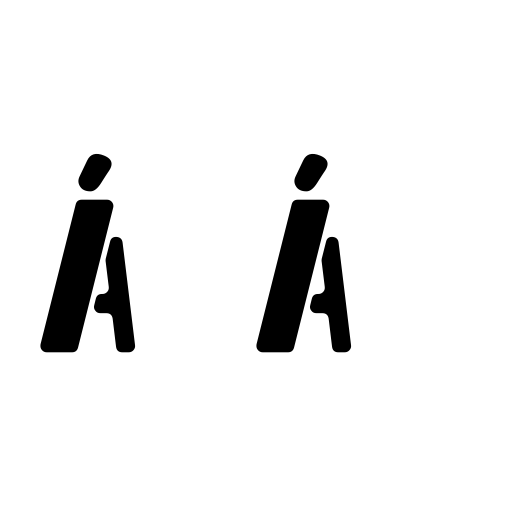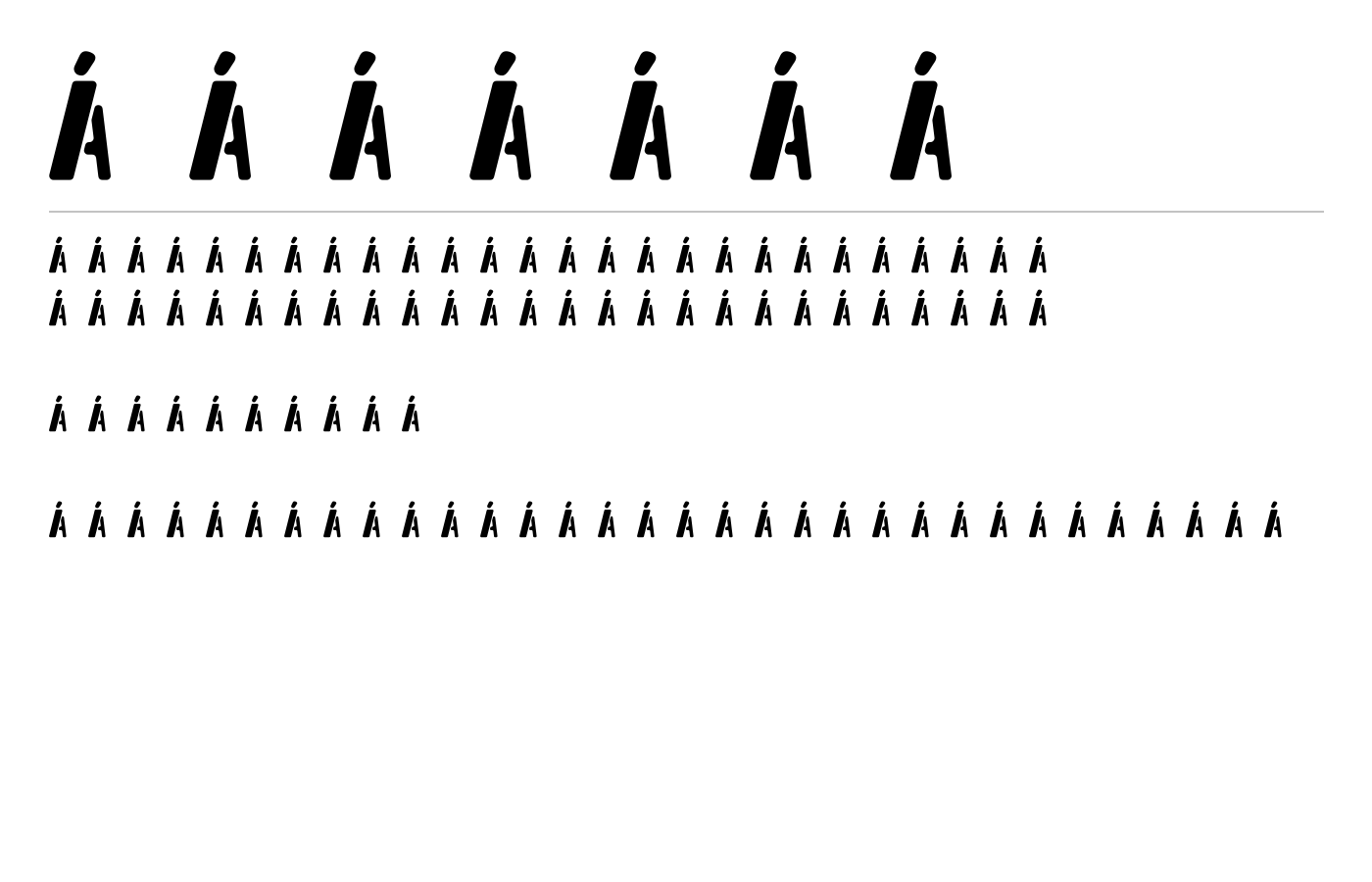
Bipolar is a bold, condensed sans serif font with a strong geometric influence and high contrast between thick and thin strokes. Its sharp, angular shapes and italic slant give it a dynamic, modern feel, making it ideal for eye-catching headlines, logos, and branding that aims to convey energy and individuality. This font works well in creative and fashion-forward contexts where a distinctive and edgy style is desired.
Bipolar Font